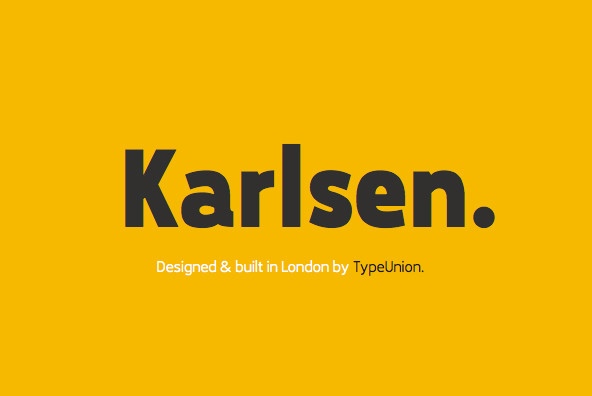
Karlsen Font
Karlsen Font is perfect for Scandinavian branding projects, Nordic design applications, minimalist corporate identities, contemporary architectural firms, lifestyle brand communications, premium product packaging, clean editorial layouts, and sophisticated web typography. This refined typeface works beautifully in both digital applications and print media where Nordic elegance and functional design principles are fundamental requirements.
What makes Karlsen Font so exciting is its masterful interpretation of Scandinavian design philosophy through clean letterforms that embody the essence of Nordic minimalism and functional beauty. The font features precise geometric characters with balanced proportions, subtle humanistic touches, and understated elegance that creates an atmosphere of quality craftsmanship and thoughtful design. Its sophisticated personality and Nordic heritage make it ideal for brands seeking to communicate sustainable values, quality manufacturing, and timeless design while appealing to audiences who appreciate functional aesthetics and environmental consciousness.
The Karlsen Font family includes comprehensive weight variations from light to bold, along with matching italic styles and condensed versions. Each style maintains the typeface's Nordic character while offering extensive multilingual support, clean numerals, refined punctuation marks, and special characters designed to enhance Scandinavian-inspired communications and international design applications across global markets.
This remarkable typeface represents the perfect fusion of Nordic design tradition and contemporary functionality for modern lifestyle and professional brands. Whether you're developing furniture company identities, creating architectural presentations, or designing sustainable product campaigns, Karlsen Font Free Download delivers the refined simplicity and versatility needed to communicate Nordic values effectively. The font's Scandinavian aesthetic makes it particularly effective for design studios, sustainable brands, furniture manufacturers, and organizations celebrating minimalism and environmental responsibility.
The meticulously balanced proportions and optimized performance in Karlsen Font ensure exceptional clarity while preserving its distinctive Nordic character. Its versatile nature allows seamless application from elegant headlines to readable body text, making it an invaluable tool for designers creating cohesive brand experiences that resonate with audiences seeking quality, sustainability, and thoughtful Scandinavian design solutions.